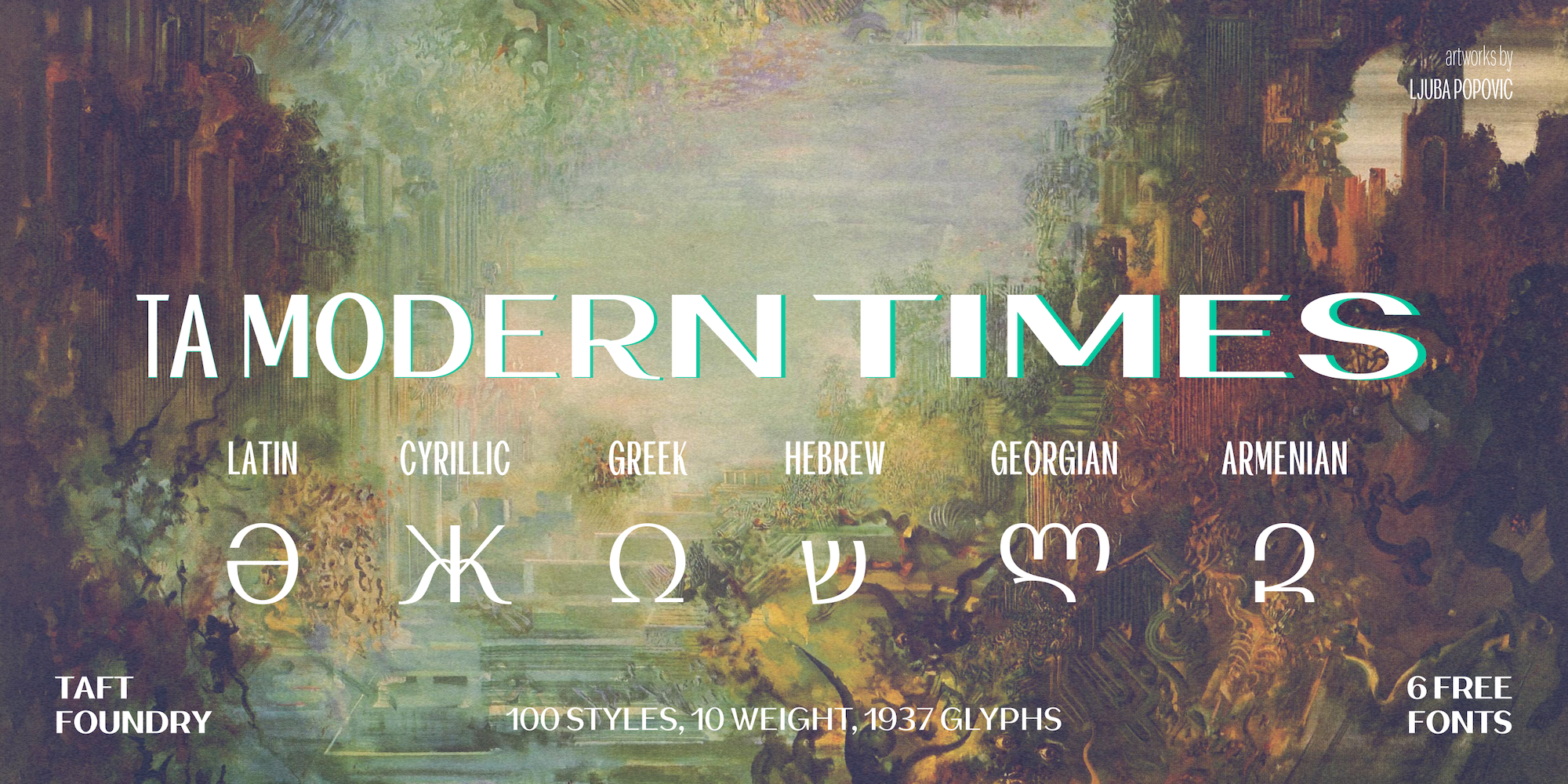
TA Modern Times Font is perfect for contemporary media publications, modern news platforms, digital journalism websites, progressive magazine layouts, current affairs documentaries, contemporary social commentary, modern editorial designs, and forward-thinking publication materials. This contemporary typeface brings modern journalistic excellence and current-day sophistication to any design project addressing today's issues and contemporary social discourse.
What makes TA Modern Times Font exciting is its perfect embodiment of contemporary communication standards combined with modern editorial excellence that captures the fast-paced nature and information density of today's media landscape. The clean letterforms feature optimized readability and contemporary proportions that create an unmistakably modern appearance. Each character reflects the urgency and clarity required in modern journalism, making it ideal for publications that address current events, social issues, and the complex realities of modern life.
The TA Modern Times Font family typically includes multiple weights from light to bold with complete uppercase and lowercase letters, numbers, punctuation marks, and contemporary symbols. Many versions feature additional modern editorial elements, digital media indicators, and contemporary design symbols that enhance the modern aesthetic and provide functionality for current publishing and media design applications.
Whether you're developing modern media brands or creating contemporary editorial materials, TA Modern Times Font Free Download offers unmatched modern authority and journalistic clarity. This contemporary typography choice transforms current information into compelling communications that resonate with audiences navigating today's complex information landscape. The font's modern construction ensures exceptional performance across digital and print media while maintaining its distinctive contemporary character that makes every design project feel like essential reading for understanding the modern world where information moves at lightning speed and clarity matters more than ever.